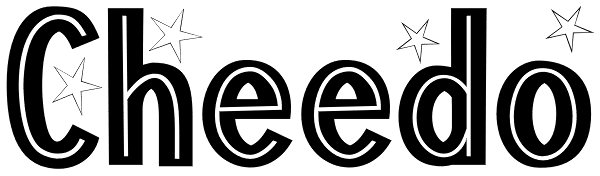
Cheedo
Cheedo is a bold funky font with a white internal stripe, with two variations - one having occasional outline stars, the other without. The packages contain both OTF and TTF versions -install either OTF or TTF, not both.
Cheedo Plain
Cheedo